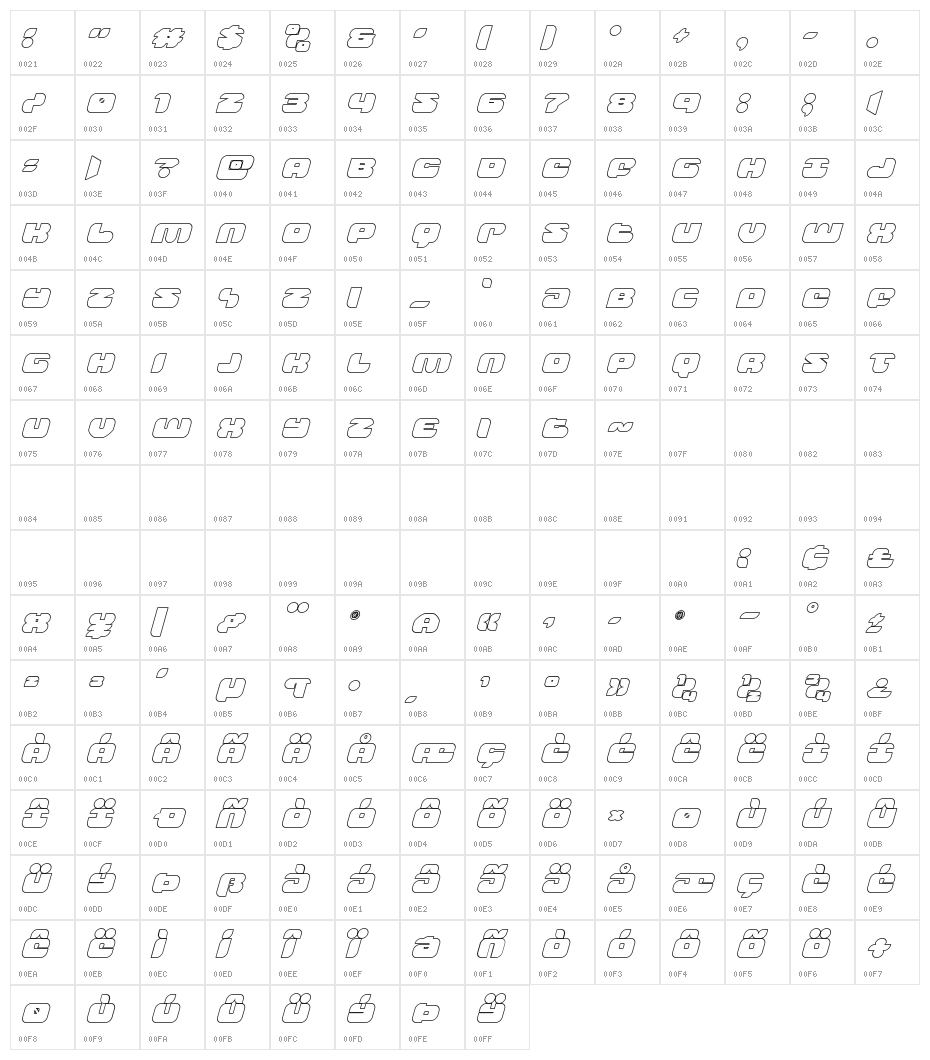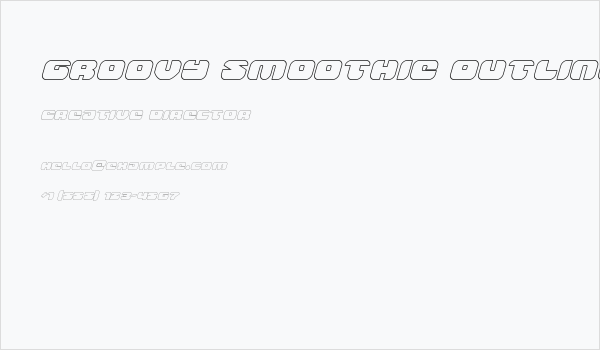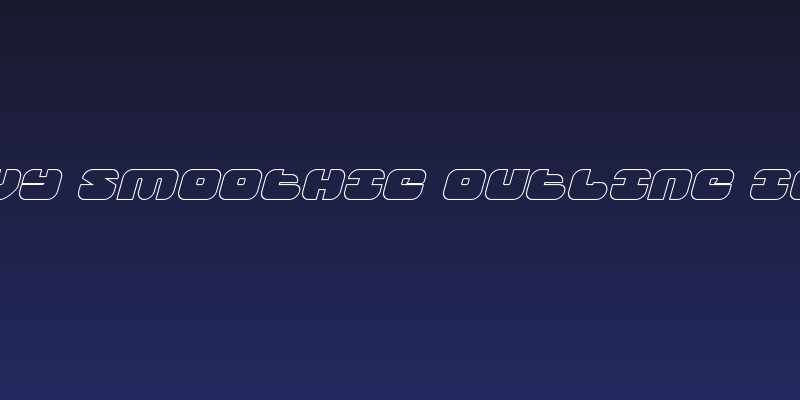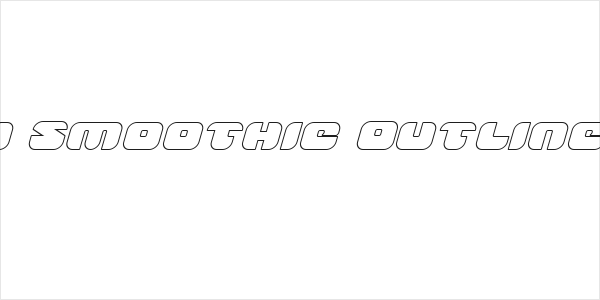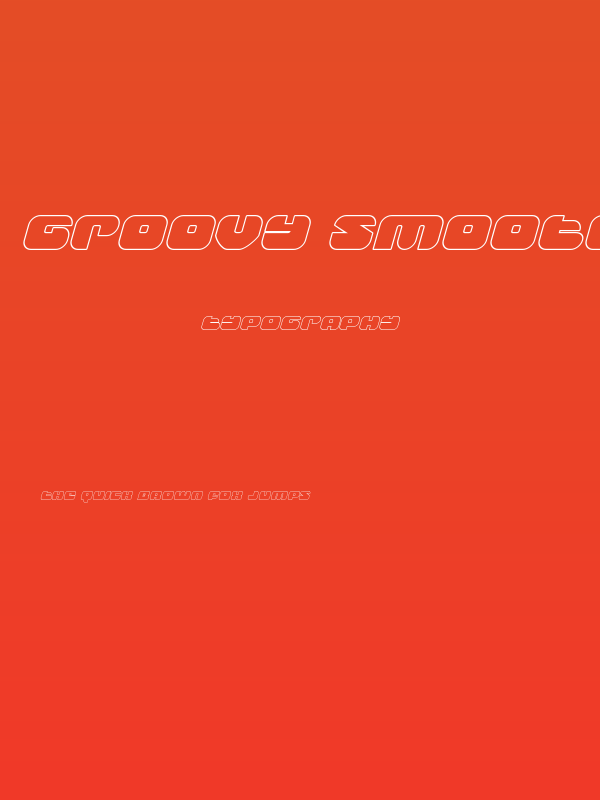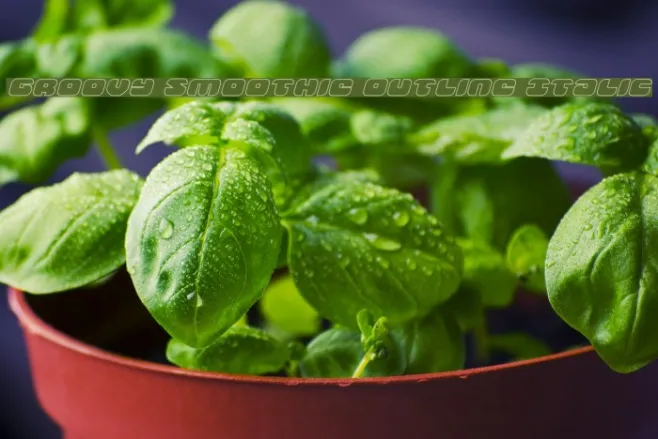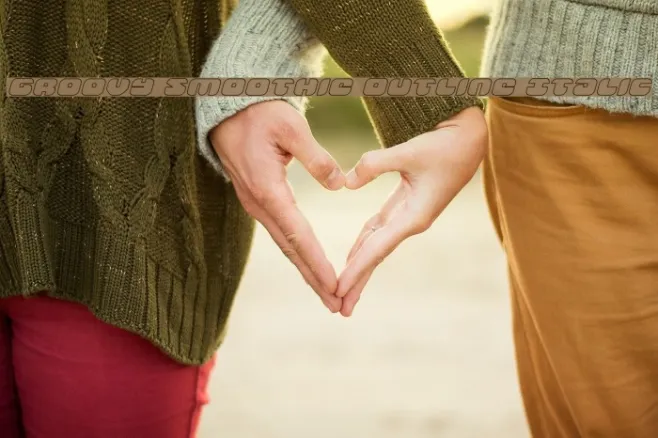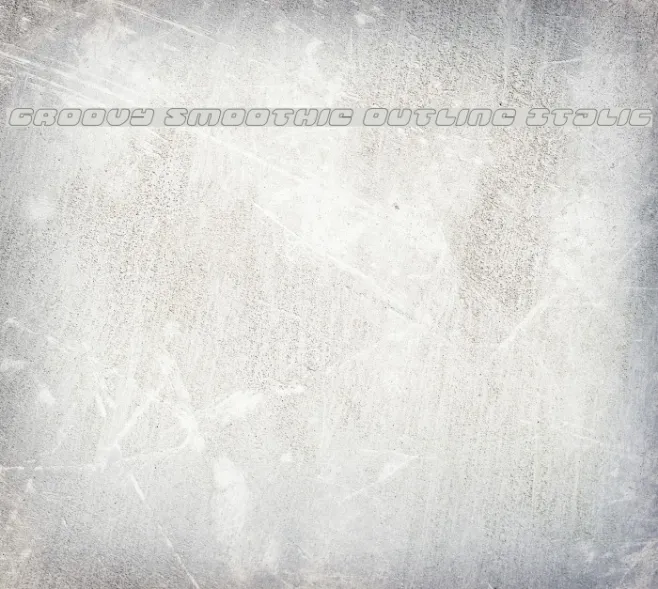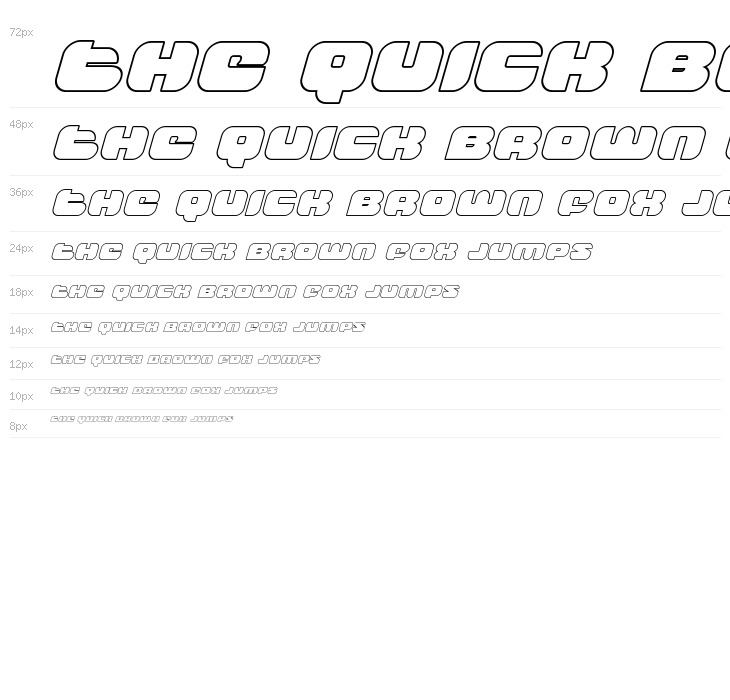
Groovy Smoothie Outline Italic Font
Groovy Smoothie Outline Italic Description
This font features a playful and bold outline style with a smooth, rounded appearance. The letters are slightly italicized, giving them a dynamic and energetic feel. Each character is outlined, creating a hollow effect that adds to its unique charm. The font maintains a consistent thickness throughout, with no significant variation in stroke width, which contributes to its modern and clean look. The characters are well-spaced, ensuring readability while maintaining a cohesive visual flow. This font is ideal for projects that require a fun and engaging aesthetic.
| Proposed Projects | Perfect for children's book covers, playful branding, event posters, and creative social media graphics. |